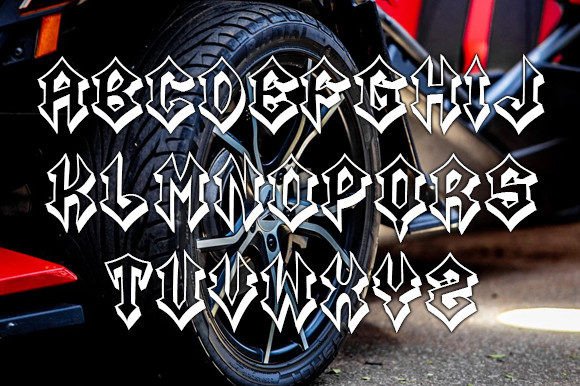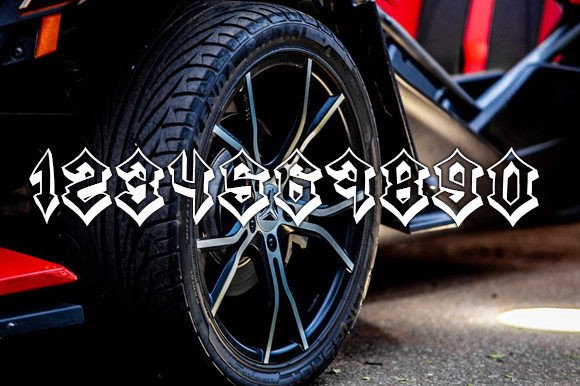
Introduction to Schmitt Font
Have you ever been working on a creative project, pouring your heart and soul into it, only to realize that the perfect font is missing to give it that extra oomph? This is exactly what happened to many designers when they stumbled upon Schmitt Font Blackletter – a game-changing typeface that elevates any design to new heights.
With its bold and captivating style, Schmitt Font Blackletter is a treasure trove of intricate and ornate letterforms that evoke a sense of history and craftsmanship. Whether you’re working on a branding project, logo design, or any other creative endeavor, this high-quality font is sure to make a statement. And the best part? You can download it for free, giving you the flexibility to use it as a design resource in your next project with a transparent background.
Key Features of Schmitt Font
- High-quality design with a transparent background, ideal for creative projects and designs requiring a clean aesthetic.
- Unique characteristics include a modern and elegant feel, making it suitable for a wide range of creative projects.
- Supports Latin and Cyrillic languages, expanding its usability for multilingual designs.
I recently came across the Schmitt Font, a free download that I was excited to try out for my next creative project. After giving it a spin, here are my thoughts.
What works well: ✨ The font has a clean and modern aesthetic that makes it perfect for a variety of design applications. I particularly enjoyed using it for headings in a brochure design I was working on. The high quality of the font files made it easy to use and adjust the size and style to fit my needs.
What I didn’t like: ⚠️ One of the limitations I found was the lack of flexibility when it comes to customizing the font. While it’s great that it’s a free download, I sometimes wish I had more control over the design elements. Additionally, the font doesn’t work well with transparent backgrounds, which was a bit of a bummer for a project I was working on that required a lot of transparency.
Overall impression: The Schmitt Font is a solid addition to any design resource library. While it may have some limitations, its high quality and modern aesthetic make it a great choice for many creative projects.
- Pros: clean and modern aesthetic, high quality font files, free download
- Cons: limited customization options, doesn’t work well with transparent backgrounds
Use the Schmitt Font in conjunction with other design elements, such as images and shapes, to create a unique and eye-catching design. Experiment with different font sizes and styles to add depth and interest to your project.
The Schmitt Font is ideal for creative projects such as logos, brochures, and social media graphics. Its unique style and high-quality design make it perfect for designers who want to add a touch of elegance to their projects.